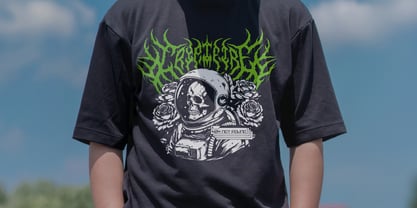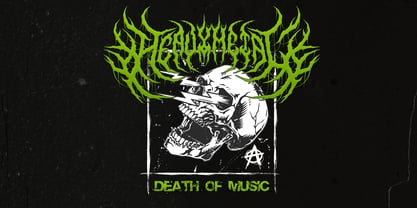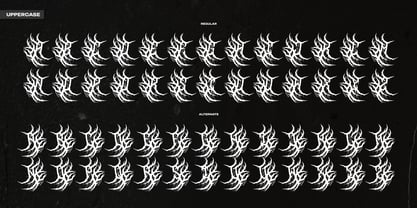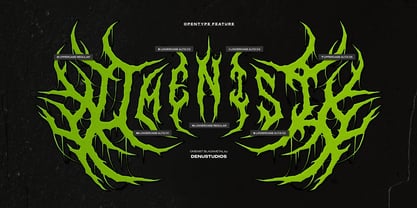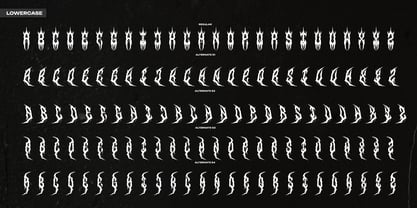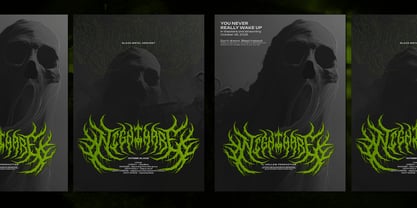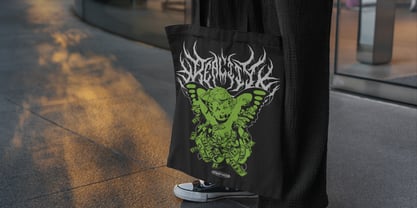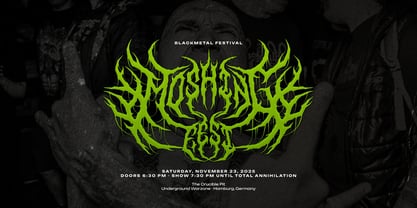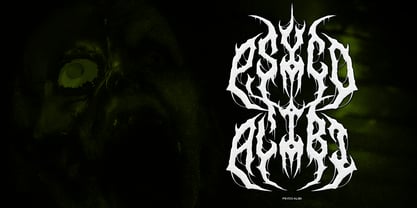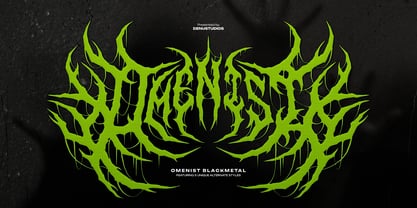
Omenist
The Omenist Font Family was designed by Dede Nugraha and published by Denustudio. Omenist contains 1 styles. More about this family
Omenist | Black Metal Typeface, from Denustudios, suitable for any projects such as: logos, branding projects, homeware designs, product packaging, mugs, quotes, posters, shopping bags, t-shirts, book covers, name card, invitation cards, greeting cards, label, photography, watermark, special events, and all your other lovely projects that need Black Metal Typeface a taste.
• Alternate and Ligature